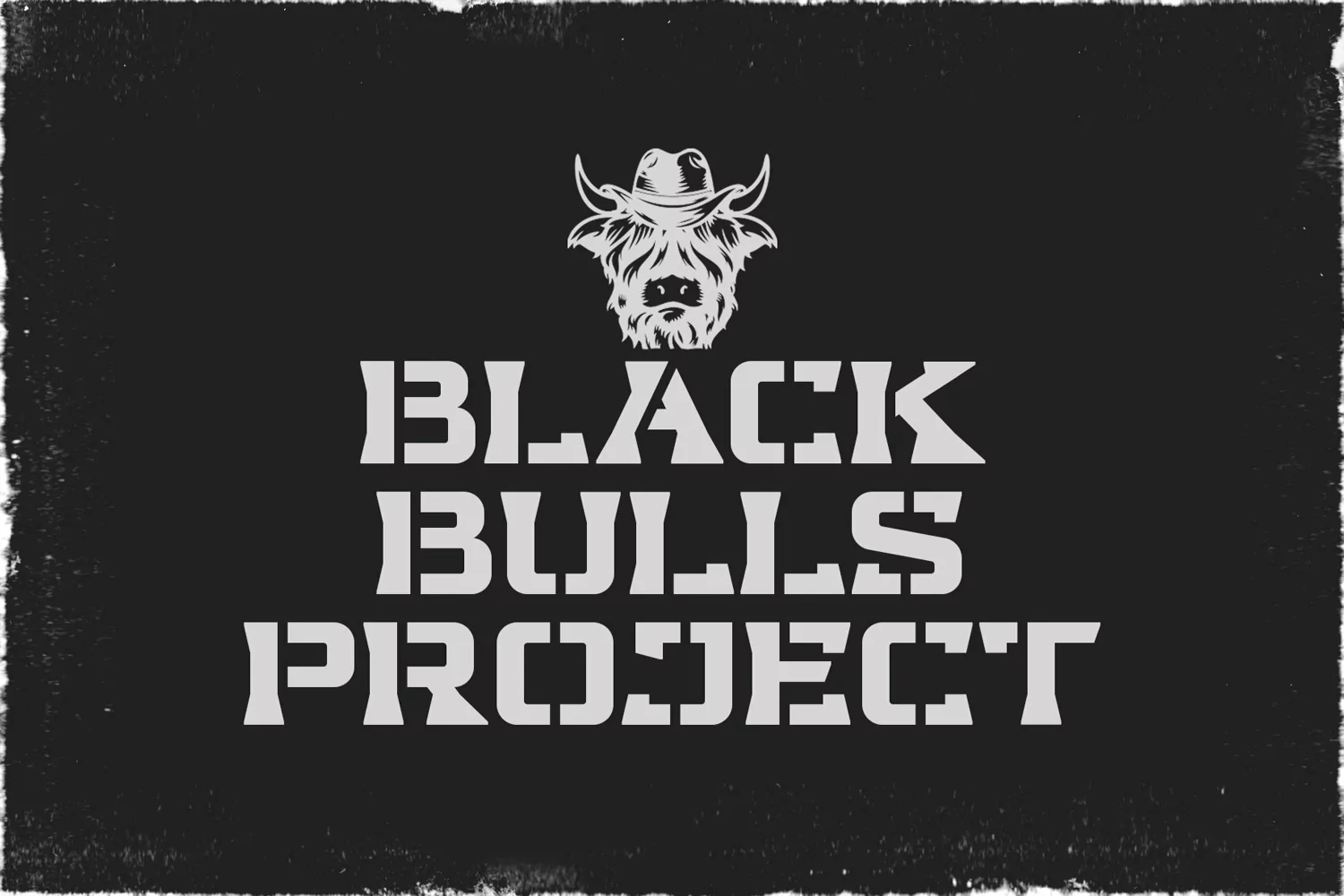
Demacia is revolutionizing a varsity slab serif. Combining sharp edges, flared serif, and available in a stencil version fitting it into the modern scene.